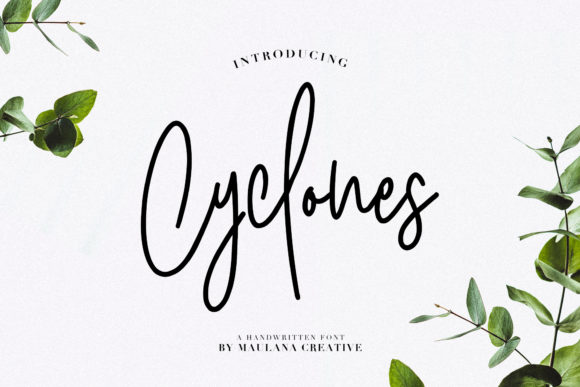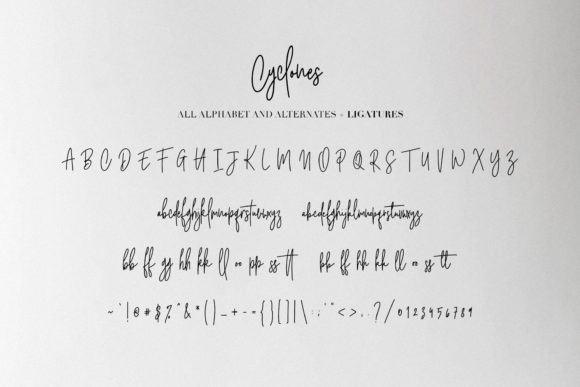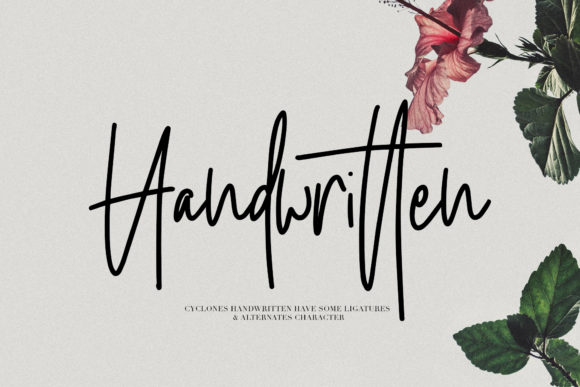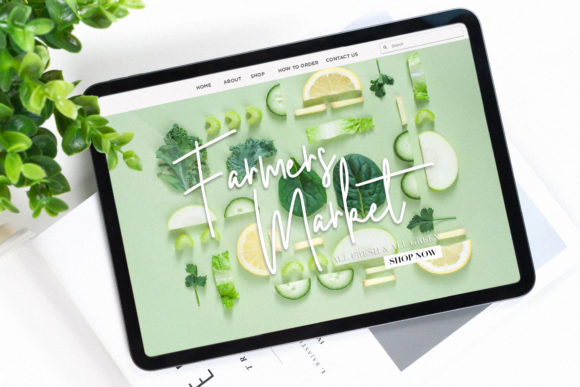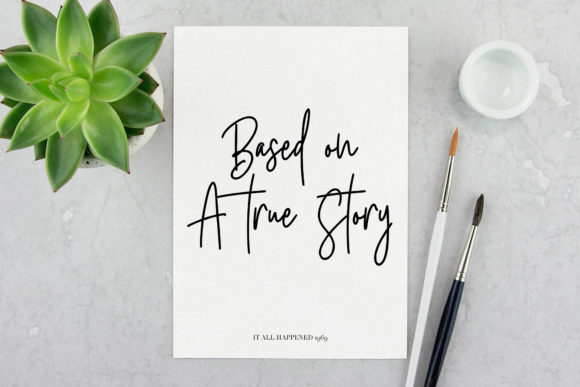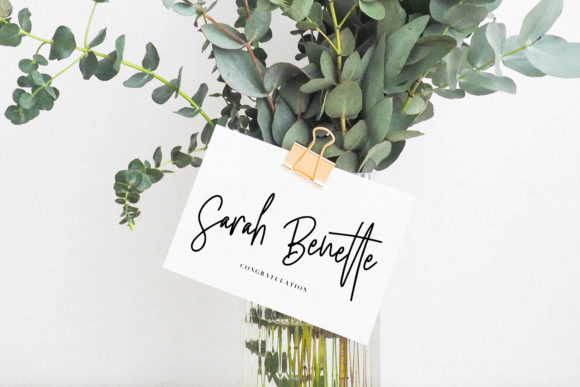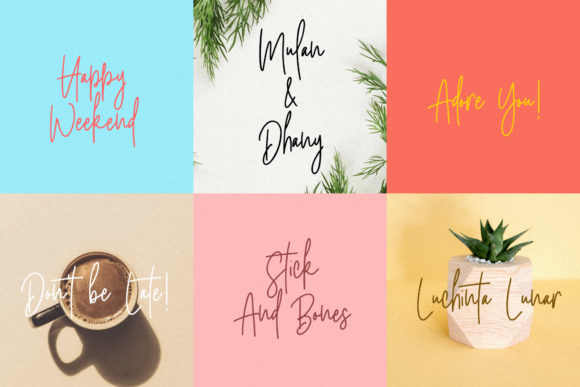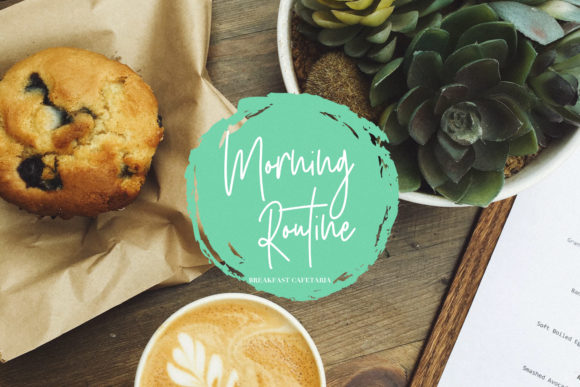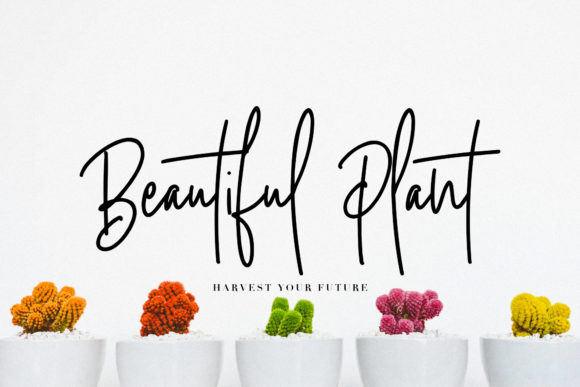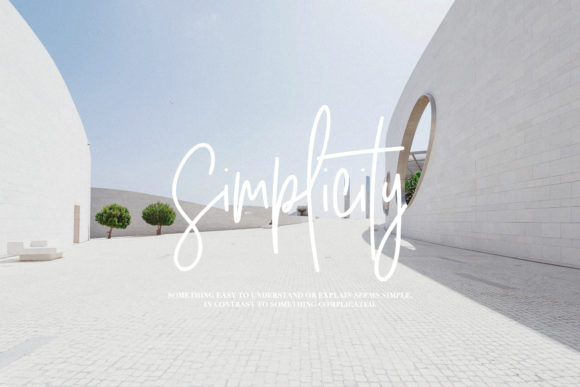
HomeScript FontsCyclones Font Script Fonts Cyclones Font FacebookXPinterestWhatsApp Cyclones Font Poster 2 Cyclones Font Poster 3 Cyclones Font Poster 4 Cyclones Font Poster 5 Cyclones Font Poster 6 Cyclones Font Poster 7 Cyclones Font Poster 8 Cyclones Font Poster 9 Cyclones Font Poster 10 About Cyclones Font Cyclones is a friendly and modern script font with a unique style. Get inspired by its contemporary appeal! DOWNLOAD ON CREATIVE FABRICAThis font is sold and delivered by Creative Fabrica. Font Canyon may earn a commission if you buy through this link. People also explored Volstead Arabellia Signature Font Balytmore Hanlits Font Cherry Pink Font Shakeoff Font Purefly Font Capitana Simple Secret Font Ocean Font 360 0 TagsCyclones Font Previous articleAsphalt FontNext articleOnboard Font LEAVE A REPLY Cancel reply Comment: Please enter your comment! Name:* Please enter your name here Email:* You have entered an incorrect email address! Please enter your email address here Website: Save my name, email, and website in this browser for the next time I comment. Personal Use Free Quick Count Personal Use Free Read more about this font Denisha Personal Use Free Read more about this font Blue Highway Personal Use Free Read more about this font The Bocah Personal Use Free Read more about this font BLOG To increase your work productivity, choose the most readable fonts. In today's fast-paced work environment, where digital communication and information consumption are integral to our daily routines, the choice of fonts can significantly impact... Where to Buy American Fonts Online in 2024 Using Fonts in Digital Marketing: Tips to Strengthen Your Brand Identity Transform Your Website: Elevate Your Typography with 7 Best Web Font Generators